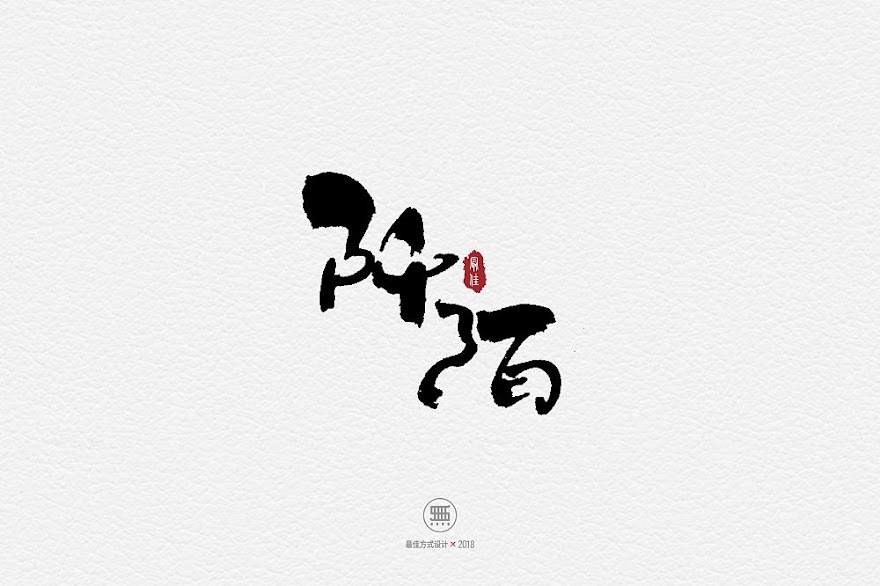
Traditional chinese fonts are typically used in hong kong, macau, taiwan, and most overseas chinese communities. Traditional chinese fonts shipped with windows xp use embedded bitmaps to provide legibility at small sizes on the screen.
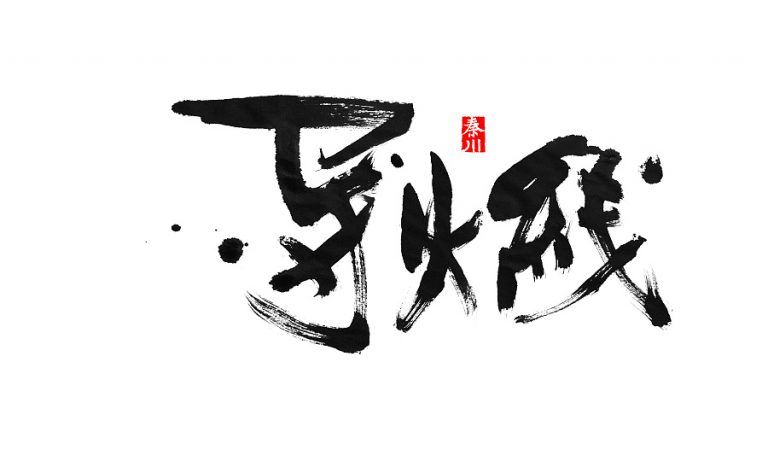
The font was originally created for japanese inputs, but because it comes. Cwtex q kai ti (中楷體) is a calligraphy style traditional chinese font that is free to download and you can use it in your commercial works. Search from a wide range of typography fonts
The simplified chinese fonts support the gb 18030 standard, along with china’s list of 8,105 hanzi (tōngyòng guīfàn hànzìbiǎo, which includes 199 hanzi that are. Ad download 100's of fonts, graphic assets, actions, icons & more! Chinese available in windows and mac os x version.
Traditional chinese characters maintain their forms in which they existed before the introduction of simplified chinese in the people’s republic of china in the. It was designed by ten. Traditional chinese fonts shipped with windows xp use embedded bitmaps to provide legibility at small sizes on the screen.
Font details cwtex q kai ti is a calligraphy style traditional chinese font that is free to download and you can use it in your commercial works. Zcool ku hei (站酷酷黑体验版) is a free simplified chinese font that was created to celebrate the 10th year anniversary of the zcool.cn website. S2g moon is a casual, cute handwriting font that sets in traditional chinese characters.